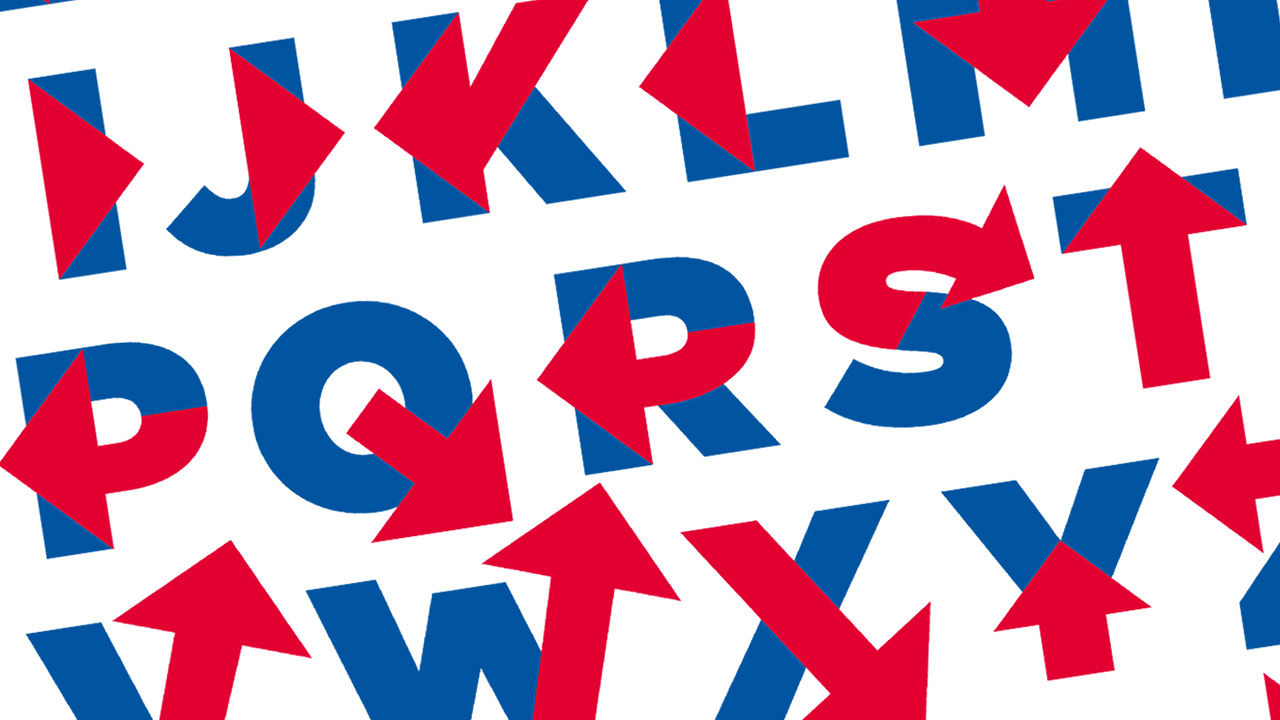
Now everybody can run for president!
On Sunday, Hillary Clinton announced her bid for presidency with a tremendous blue ‘H’ linked with the aid of a purple arrow pointing proper. it is beautiful obviously imagined to signify Clinton’s skill to pass the aisles to get things completed, or something, however it soon become a unusual design Rorschach check, which the web interpreted as everything from the signage on a Carnival Cruise Ship to (duh!) 9-11.
If only one little ‘H’ can result in all that pandemonium, imagine what a whole alphabet can do! fashion designer Rick Wolff has taken Hillary’s marketing campaign logo and turned it into a whole typeface, known as (as it should be enough) Hillvetica. when you concept that purple arrow was enraging on an “H,” wait’ll you get a load of it on a Q, and ampersand, or a query mark!